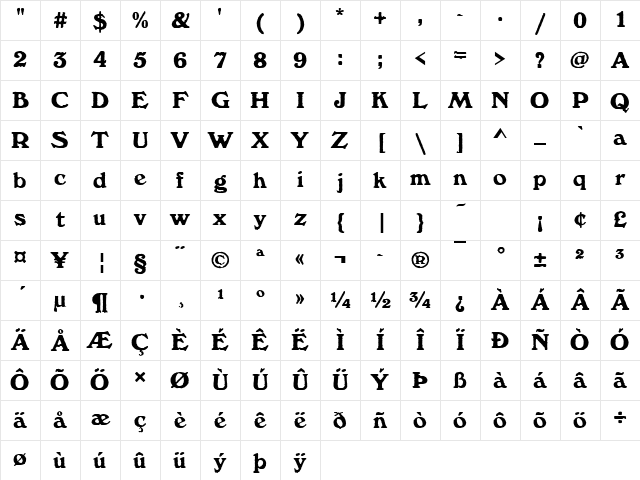
WindsorAntDBol Regular
WindsorAntDBol Family
WindsorAntDBol Regular
Complete WindsorAntDBol Regular glyph index. Displaying only characters natively supported by WindsorAntDBol Regular font.
Design Context for WindsorAntDBol
WindsorAntDBol is a composed and adaptable typeface that performs quietly and consistently across a wide range of design contexts.